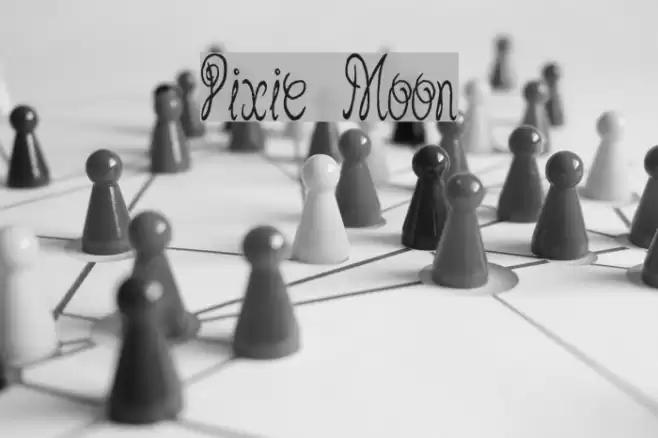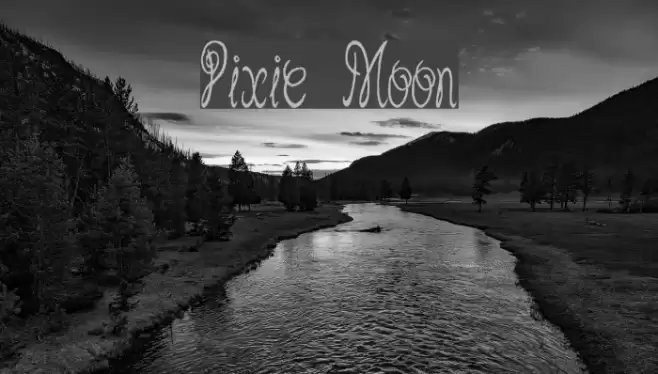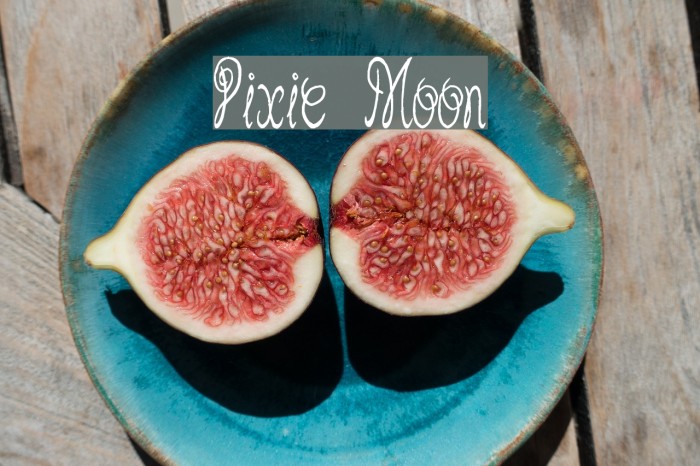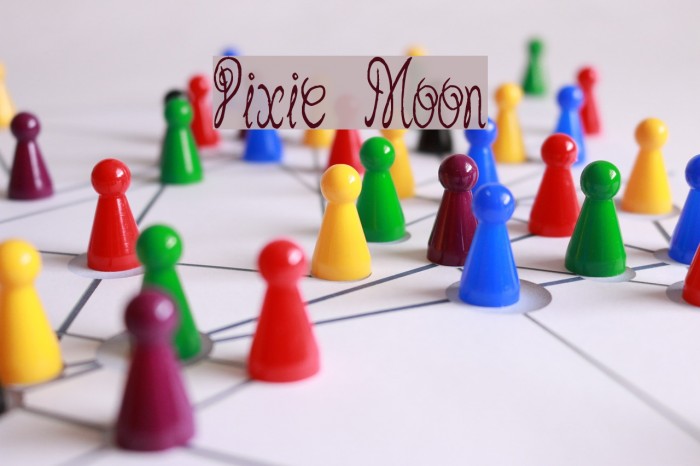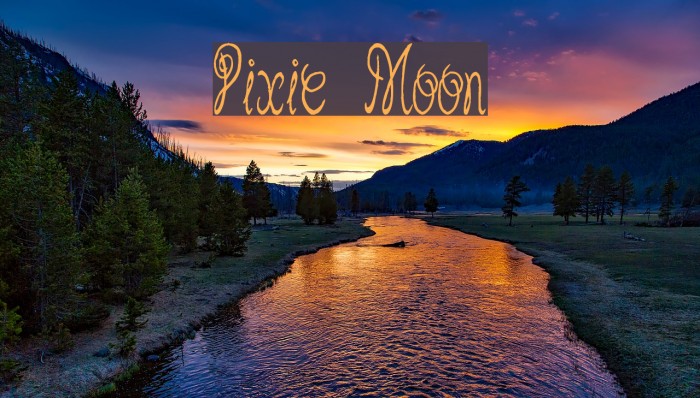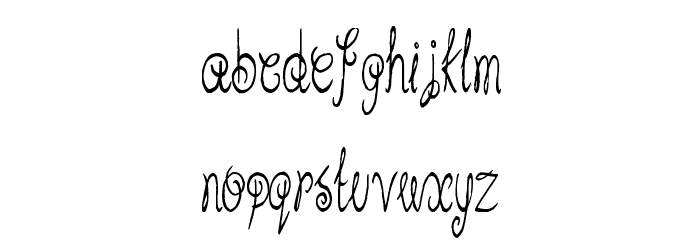
Pixie Moon Font
Pixie Moon Description
This font features a whimsical and decorative style, characterized by its playful and intricate letterforms. The uppercase letters exhibit a unique, curly design with varying line thickness, giving them a lively and enchanting appearance. The lowercase letters maintain this whimsical style but with a slightly more subdued flair, ensuring readability. The numerals are bold and clear, contrasting with the more ornate letters. Special characters are designed to match the overall playful aesthetic, making them suitable for creative and artistic projects. This font's distinct style makes it ideal for projects that require a touch of fantasy or creativity.
A whimsical and decorative font with playful, curly letterforms from Uncategorized fonts.
- Proposed Projects: Ideal for fantasy-themed designs, children's books, invitations, and creative branding.
- Use Case: Headlines, Logos, Invitations